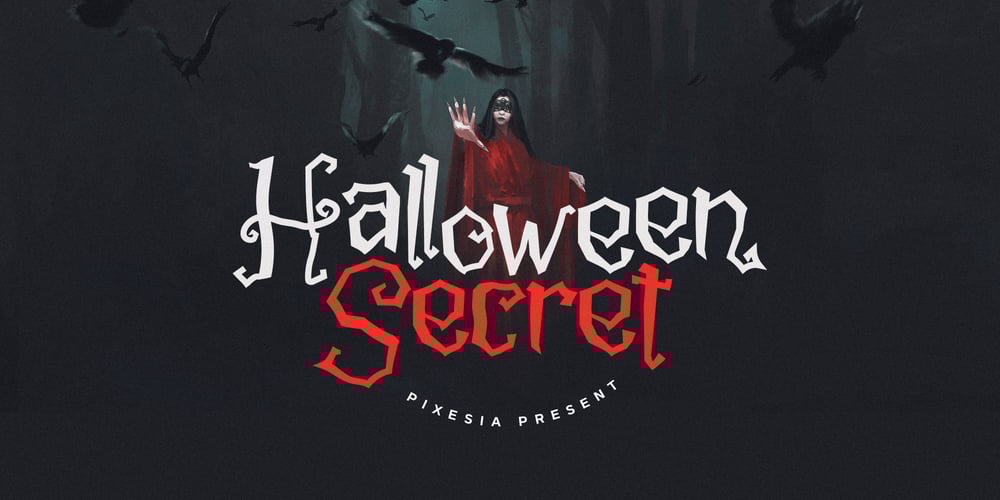
Halloween Secret Font Family was designed by Abul Almaududi and published by Pixesia Studio. Halloween Secret contains 1 styles and family package options. Introducing Halloween Secret – A Spooky Display FontHalloween Secret is a display font inspired by twig of the halloween tree. This font has strong character with fantasy, scream, mystical feel. It will work great with your halloween design project such book/novel or movie title, logos & branding, social media posts, advertisements & product designs, etc.FEATURES- Stylistic Alternates- Ligatures- PUA Encoded- Uppercase and Lowercase letters- Numbering and Punctuations- Multilingual Support- Works on PC or Mac- Simple Installation- Support Adobe Illustrator, Adobe Photoshop, Adobe InDesign, also works on Microsoft WordHope you Like it.Thanks.